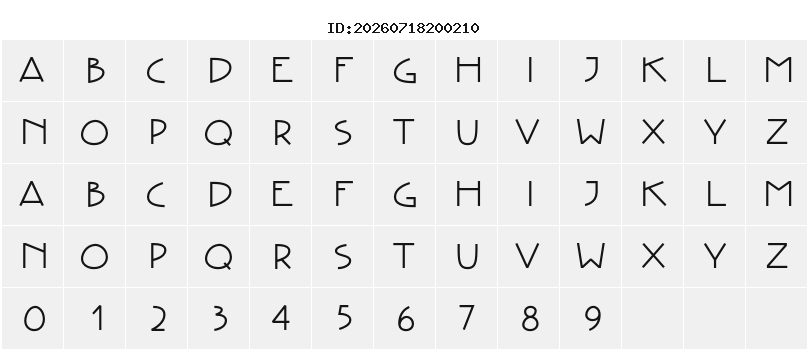
• Font Name: Creative Type Bold
• Designer: Tereza Cenic
About Creative Type Bold.otf
Creative Type Bold.otf is a modern, elegant sans-serif font designed for ultimate readability and visual harmony. Perfect for branding, headlines, web design, and print materials.